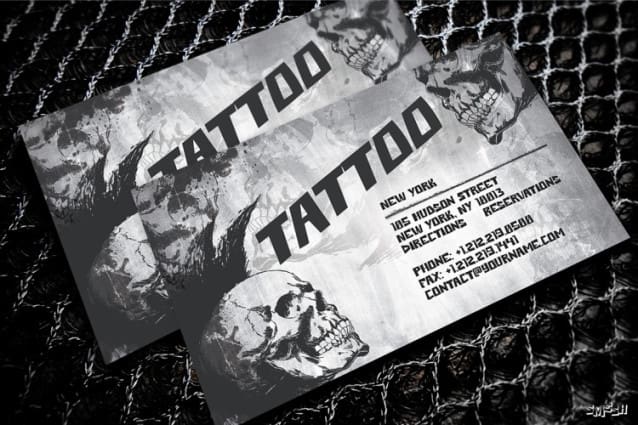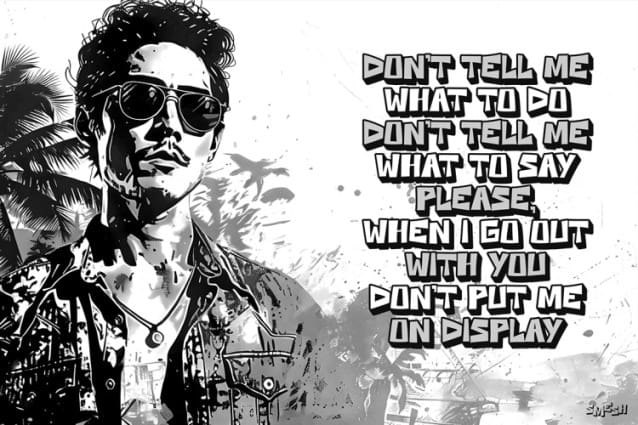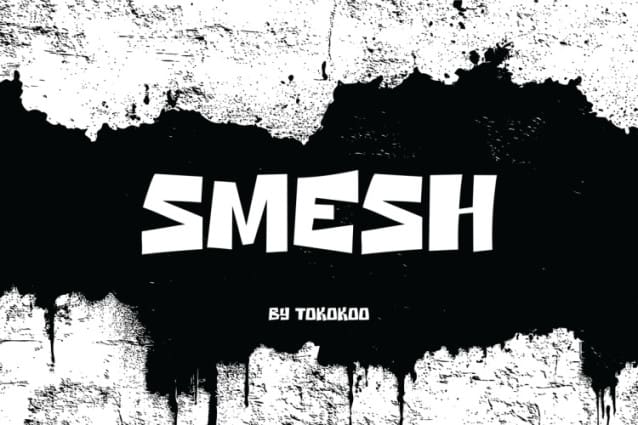
Smesh Display Font
Smesh Display Font: truly embodies classic tattoo art with bold, intricate designs that instantly grab attention. Each letter in SMESH has a handcrafted, artisanal quality, inspired by traditional tattoo aesthetics with sharp edges and dramatic lines. This design, however, offers a modern twist, adding an edgy flair to any text. SMESH’s structure captures the charm of vintage tattoo styles, so it remains both creative and striking. The font’s versatility shines in both large display text and smaller captions, delivering the right balance of clarity and boldness.
Each stroke and curve in SMESH conveys artistry, carefully blending the rebellious essence of tattoos with captivating style. Furthermore, the depth of this font comes from its intricate lines and unique embellishments, giving each letter added personality. SMESH’s shading and contrast add visual appeal, making it a dynamic choice for print, digital, and branding projects alike. Notably, the font’s bold personality and intricate details attract those who love tattoo culture and unique typography, so it’s ideal for designs that demand creativity and impact.